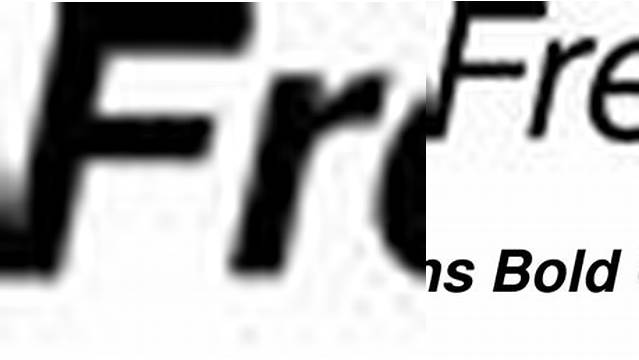
FreeSans Bold Oblique Font: A Comprehensive Guide
Hey guys! Ever wondered about the FreeSans Bold Oblique font? It's more than just a typeface; it's a versatile tool that can add a unique touch to your projects. This comprehensive guide will dive deep into everything you need to know about it. Let's get started!
What is FreeSans Font?
Before we zoom in on the bold oblique version, let's talk about FreeSans in general. FreeSans is a sans-serif typeface designed to be a free and open-source alternative to popular fonts like Helvetica and Arial. It's part of the GNU FreeFont family, which aims to provide high-quality, freely available fonts for everyone. FreeSans is known for its clean, simple lines and excellent readability, making it suitable for a wide range of applications, from body text in books and articles to headings and display text on websites and posters. The font family includes various styles such as regular, bold, italic, and bold italic, ensuring versatility for different design needs. Its open-source nature means that it can be freely used, distributed, and modified, making it a favorite among designers and developers who prioritize freedom and flexibility in their work. You can find FreeSans used in various open-source projects and operating systems, further highlighting its importance in the free software community. Its broad character set supports multiple languages, making it a global choice for projects requiring multilingual support. Whether you're designing a website, creating a document, or working on a graphic design project, FreeSans provides a reliable and accessible option for your typographic needs.
Understanding Bold Oblique Style
So, what exactly does “bold oblique” mean? “Bold” refers to the weight of the font, making the characters thicker and more prominent. This is great for emphasis and grabbing attention. “Oblique,” on the other hand, is a slanted version of the font, similar to italic but achieved through a different technical method. While italic fonts are specifically designed with unique letterforms, oblique fonts are simply slanted versions of the regular font. This gives FreeSans Bold Oblique a distinctive, dynamic look. Think of it as a regular font leaning forward with confidence! The combination of bold and oblique styles makes it stand out even more, making it perfect for headlines, callouts, and any text you want to emphasize. Using bold oblique can add a sense of urgency or importance to your message, drawing the reader's eye and making the text more memorable. In design, this style can be particularly effective in creating visual hierarchy, helping to guide the reader through the content and highlight key information. It's also a great way to add visual interest to otherwise plain text, making your designs more engaging and appealing. Just remember to use it sparingly to avoid overwhelming the reader and diluting its impact.
Key Features of FreeSans Bold Oblique
FreeSans Bold Oblique comes packed with features that make it a solid choice for various design projects. First off, its clarity and readability are top-notch, even in smaller sizes. The bold weight ensures that the text remains visible and impactful, while the oblique slant adds a touch of flair without sacrificing legibility. Another key feature is its broad character set, supporting a wide range of languages and symbols. This is particularly useful for international projects or when you need to include special characters. The font also boasts excellent kerning and spacing, ensuring that the letters fit together harmoniously and the text flows smoothly. This attention to detail contributes to a professional and polished look. Additionally, FreeSans Bold Oblique is available in various formats, making it compatible with different operating systems and software applications. Its open-source license means you can freely use it for commercial and non-commercial projects without worrying about licensing fees or restrictions. The font's consistent design and adherence to typographic principles make it a reliable choice for both print and digital media. Whether you're designing a website, creating a poster, or formatting a document, FreeSans Bold Oblique offers a versatile and accessible solution for your typographic needs.
Applications in Web Design
When it comes to web design, FreeSans Bold Oblique can be a real game-changer. Use it for headlines to make a bold statement and grab visitors’ attention right away. It works wonders for call-to-action buttons, making them pop and encouraging users to click. You can also use it to highlight important information within your content, such as key statistics or quotes. Just be careful not to overuse it – too much bold oblique can be overwhelming and detract from the overall design. Consider using it sparingly, in combination with other fonts, to create a balanced and visually appealing website. For example, you might pair FreeSans Bold Oblique for headlines with a lighter, more readable font for body text. This creates a clear visual hierarchy and guides the user through the content. Also, ensure that the font is properly optimized for web use to maintain fast loading times and a smooth user experience. Using CSS, you can easily control the font's appearance, including size, color, and spacing, to match your website's overall design aesthetic. With its clean lines and distinctive slant, FreeSans Bold Oblique can add a touch of sophistication and modernity to your web designs.
Using FreeSans Bold Oblique in Print Media
Don't think FreeSans Bold Oblique is just for the digital world! It shines in print media too. Think about using it for posters to create eye-catching headlines that draw people in. It’s also great for brochures and flyers, where you need to highlight key selling points or important information. In magazines and newsletters, FreeSans Bold Oblique can add a touch of style to headings and subheadings, making the content more engaging. Just remember to choose the right size and weight for your specific application. A larger size works well for headlines, while a smaller size may be more appropriate for subheadings or captions. Also, consider the paper type and printing method to ensure that the font appears crisp and clear. Using high-quality paper and professional printing services can make a big difference in the final result. Furthermore, be mindful of the overall design and layout of your print materials. FreeSans Bold Oblique should complement the other design elements, such as images and colors, to create a cohesive and visually appealing piece. With its versatility and readability, FreeSans Bold Oblique is a reliable choice for a wide range of print projects.
Pairing FreeSans Bold Oblique with Other Fonts
Choosing the right font pairing can make or break your design. FreeSans Bold Oblique plays well with a variety of other fonts. For a classic and clean look, try pairing it with a serif font like Times New Roman or Georgia for body text. This creates a nice contrast and enhances readability. If you're going for a more modern feel, consider pairing it with a lighter sans-serif font like Open Sans or Lato. This combination is clean, minimalist, and easy on the eyes. Experiment with different pairings to find what works best for your specific project. You can also use online tools and resources to get inspiration and guidance on font pairings. Remember to consider the overall tone and style of your design when choosing fonts. A formal design may call for more traditional pairings, while a more casual design can benefit from bolder and more unconventional combinations. Pay attention to the details, such as font size, line height, and letter spacing, to ensure that the fonts work well together and the text is easy to read. With a little experimentation, you can find the perfect font pairing to complement FreeSans Bold Oblique and elevate your design.
FreeSans Bold Oblique vs. Other Bold Oblique Fonts
How does FreeSans Bold Oblique stack up against other bold oblique fonts? Well, it holds its own pretty well. One of its biggest advantages is its open-source nature, meaning it’s free to use and distribute. This can be a huge plus for projects with limited budgets. In terms of design, FreeSans Bold Oblique offers a clean and simple look that’s versatile and easy to read. While it may not have the same level of sophistication as some premium fonts, it’s a solid choice for a wide range of applications. Compared to other free bold oblique fonts, FreeSans often stands out for its broad character set and consistent design. Some free fonts may have limited language support or inconsistent spacing, but FreeSans is generally well-designed and reliable. However, it’s always a good idea to compare different fonts and see which one best suits your specific needs. Consider factors such as readability, style, and compatibility with your design software. You might also want to test different fonts with your target audience to get feedback on which ones they find most appealing and easy to read. Ultimately, the best font is the one that helps you achieve your design goals and effectively communicate your message.
Tips for Using FreeSans Bold Oblique Effectively
To really make FreeSans Bold Oblique shine, here are a few tips to keep in mind. First, don’t overuse it. A little goes a long way, and too much bold oblique can be overwhelming. Use it sparingly to highlight key information and create visual interest. Second, pay attention to spacing and kerning. Make sure the letters are properly spaced and the text flows smoothly. Adjust the kerning if necessary to improve readability. Third, consider the context in which you’re using the font. Is it for a headline, a call-to-action button, or body text? Choose the appropriate size and weight for each application. Fourth, experiment with different colors and backgrounds. FreeSans Bold Oblique looks great in a variety of colors and can be used on both light and dark backgrounds. Fifth, get feedback from others. Show your designs to colleagues, friends, or target audience and ask for their opinions. This can help you identify potential issues and make improvements. By following these tips, you can use FreeSans Bold Oblique effectively and create visually appealing and engaging designs.